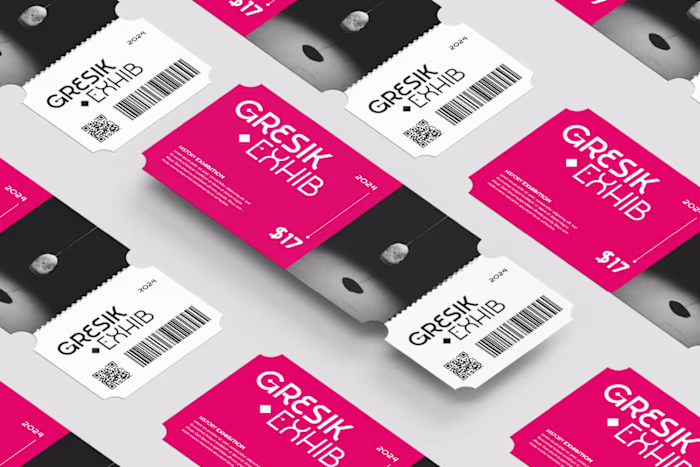
MN Newthon - Versatile Variable Font
Fredo Eka Pratama
MN Newthon is a typeface inspired by the typeface used in the logo of the football club Newton Heath L&YR, the original name of Manchester United. The name "Newthon" itself is derived from the club's name, strengthening the connection with the rich and admirable history of this very famous football club. Created with the aim of uniting all Manchester United supporters and commemorating the club's legacy, this typeface becomes a visual symbol of the club's outstanding achievements, both in Europe and worldwide.
The design of MN Newthon is based on wide proportions, enriched with a blend of grotesque and modern styles and slight contrast to ensure optimal readability. This typeface consists of 18 fonts, encompassing 2 styles—regular and italic—with 9 weights ranging from thin to black, offering high flexibility in its usage.